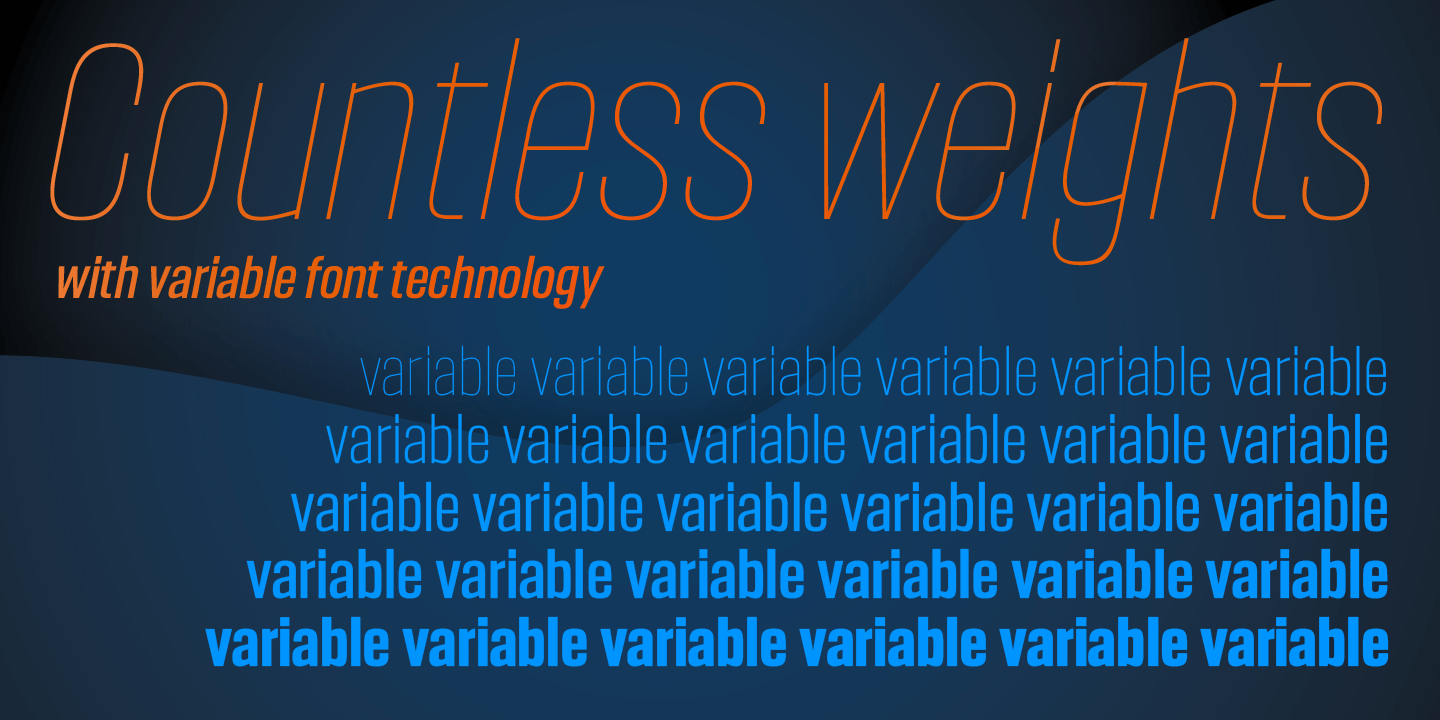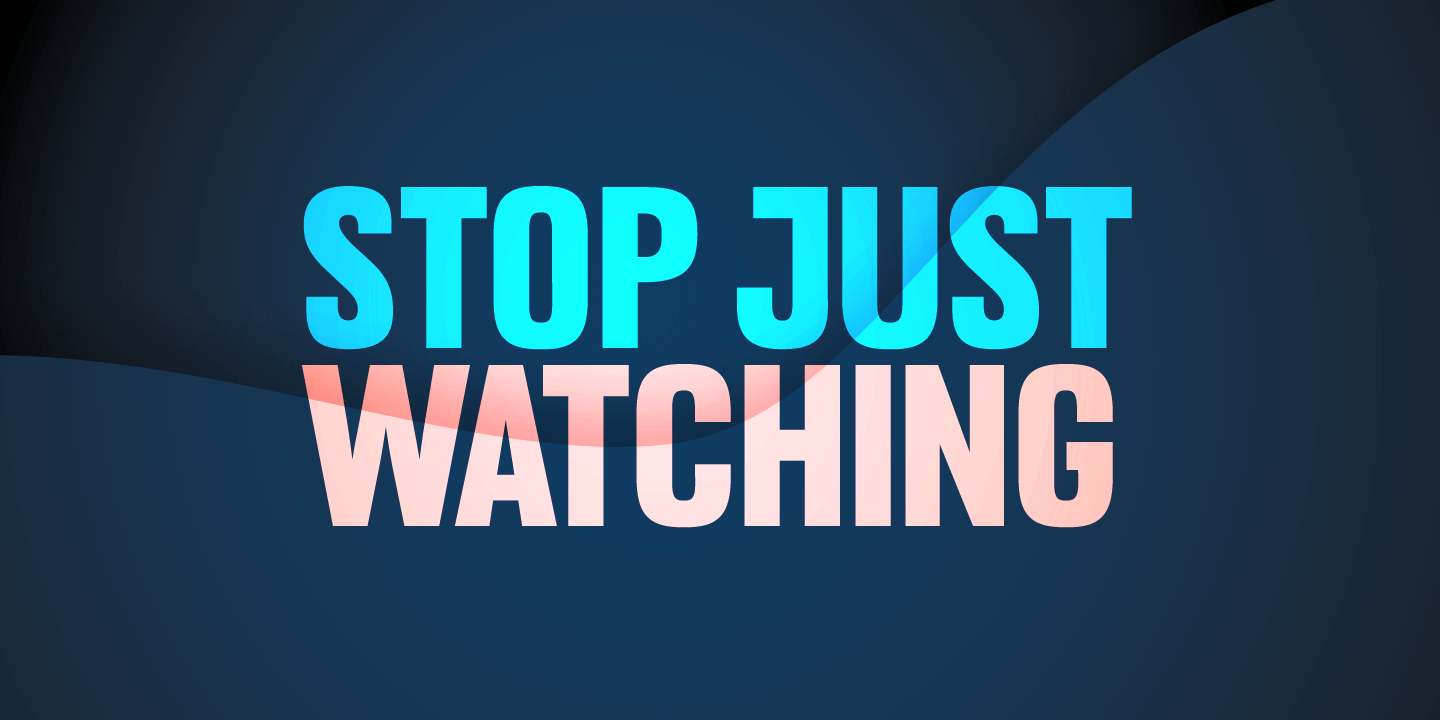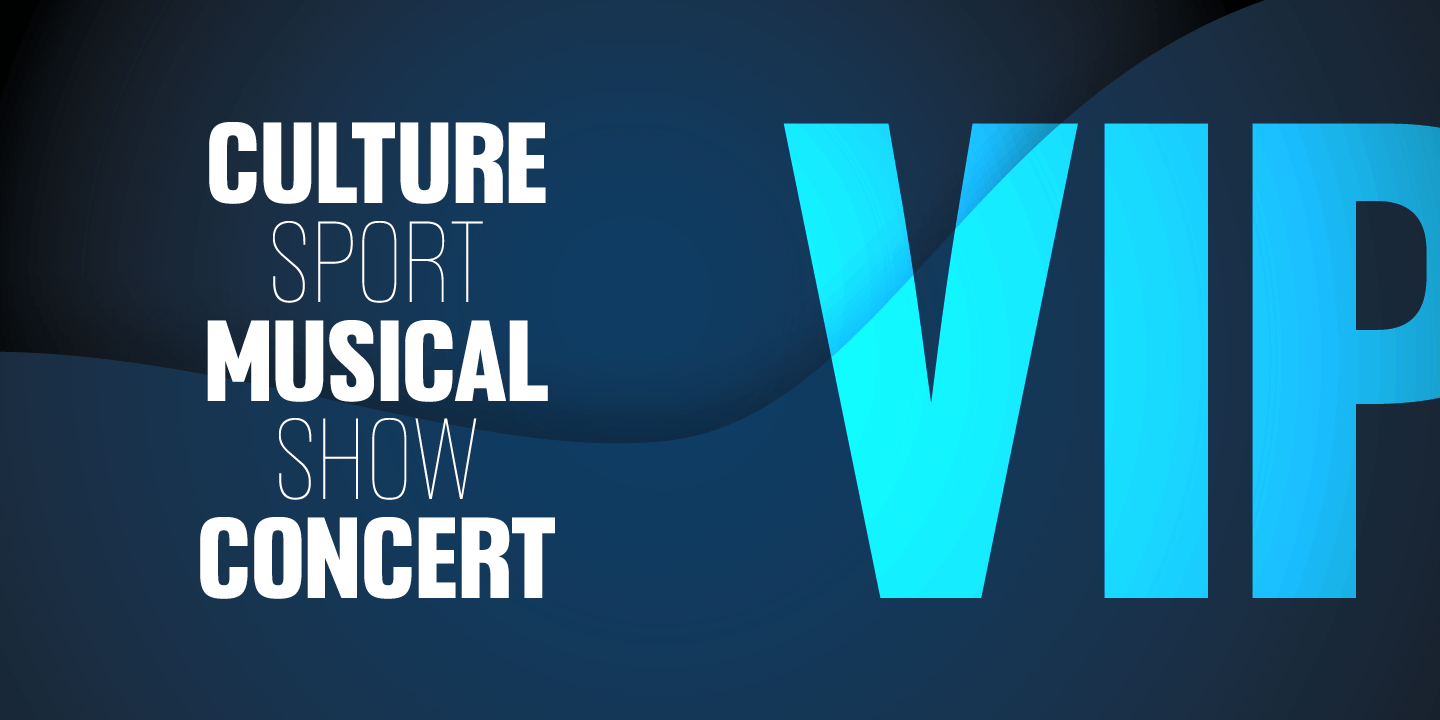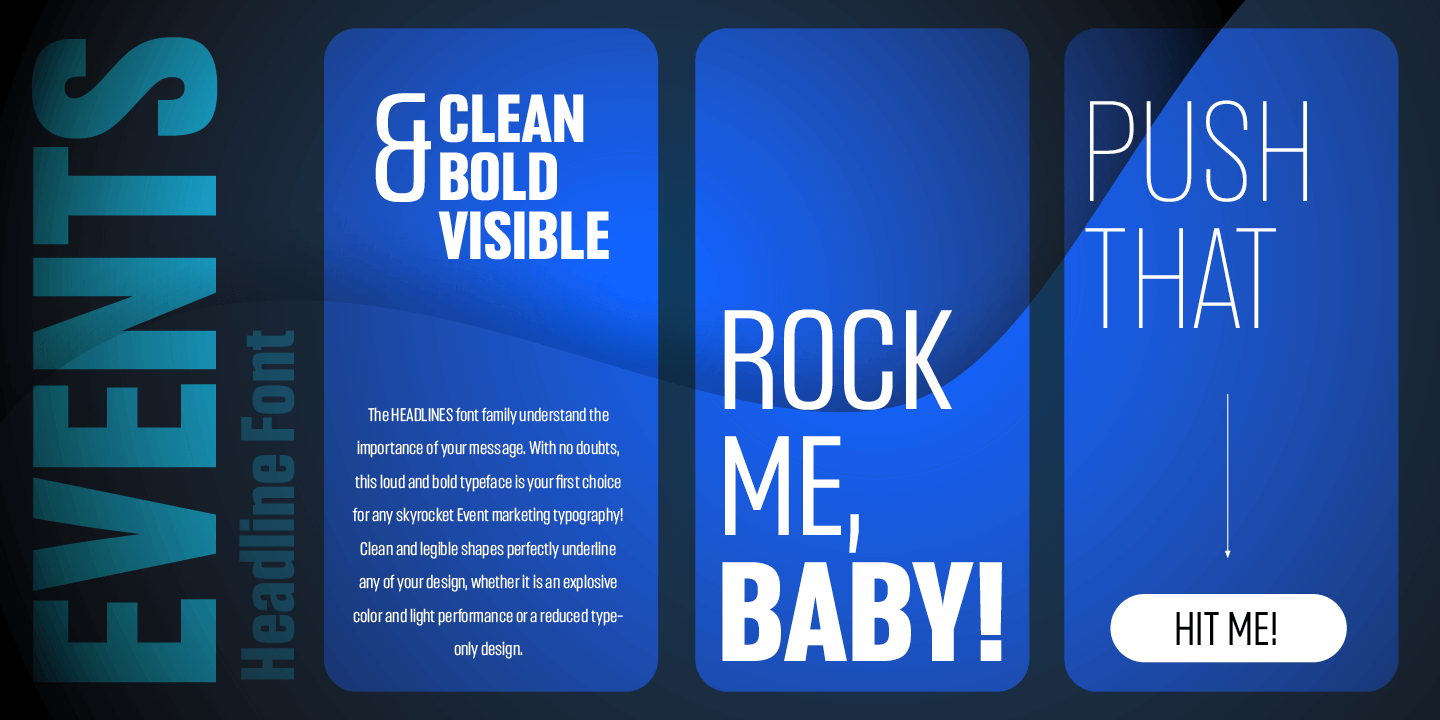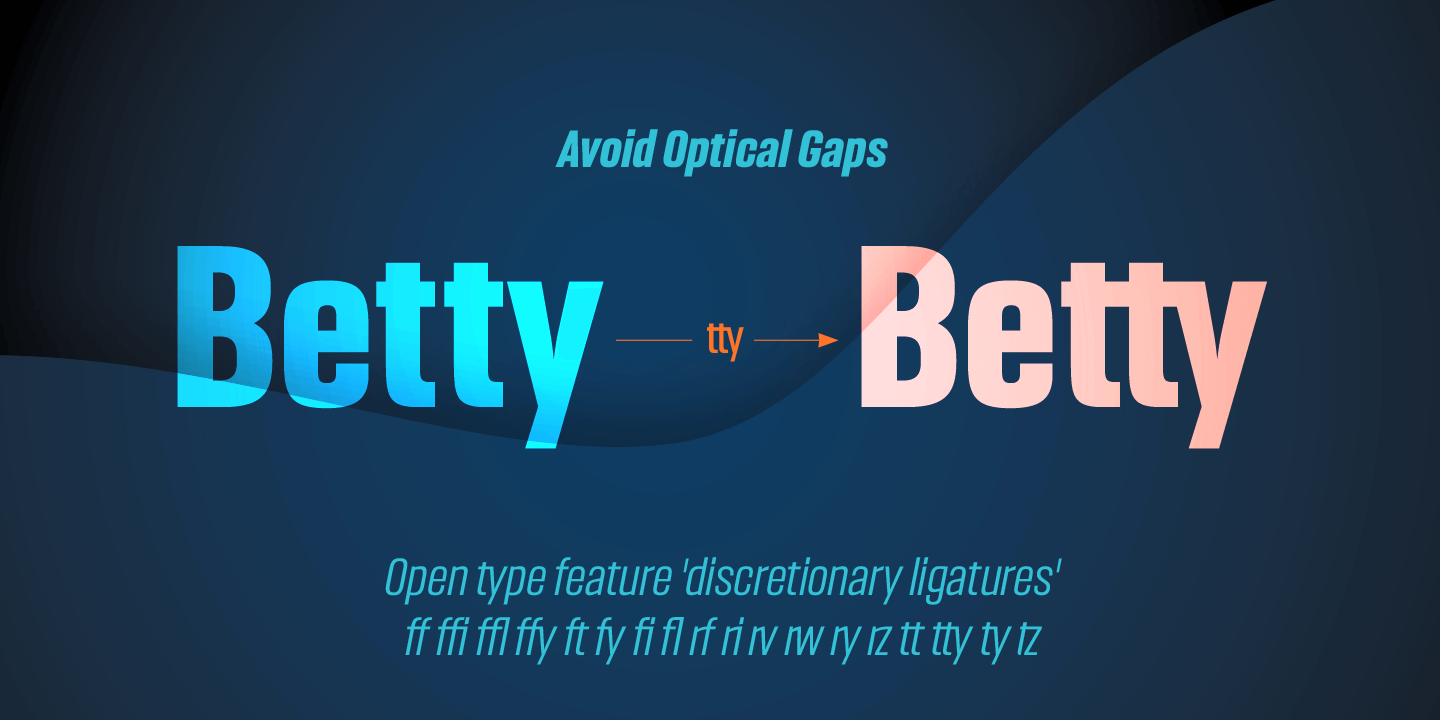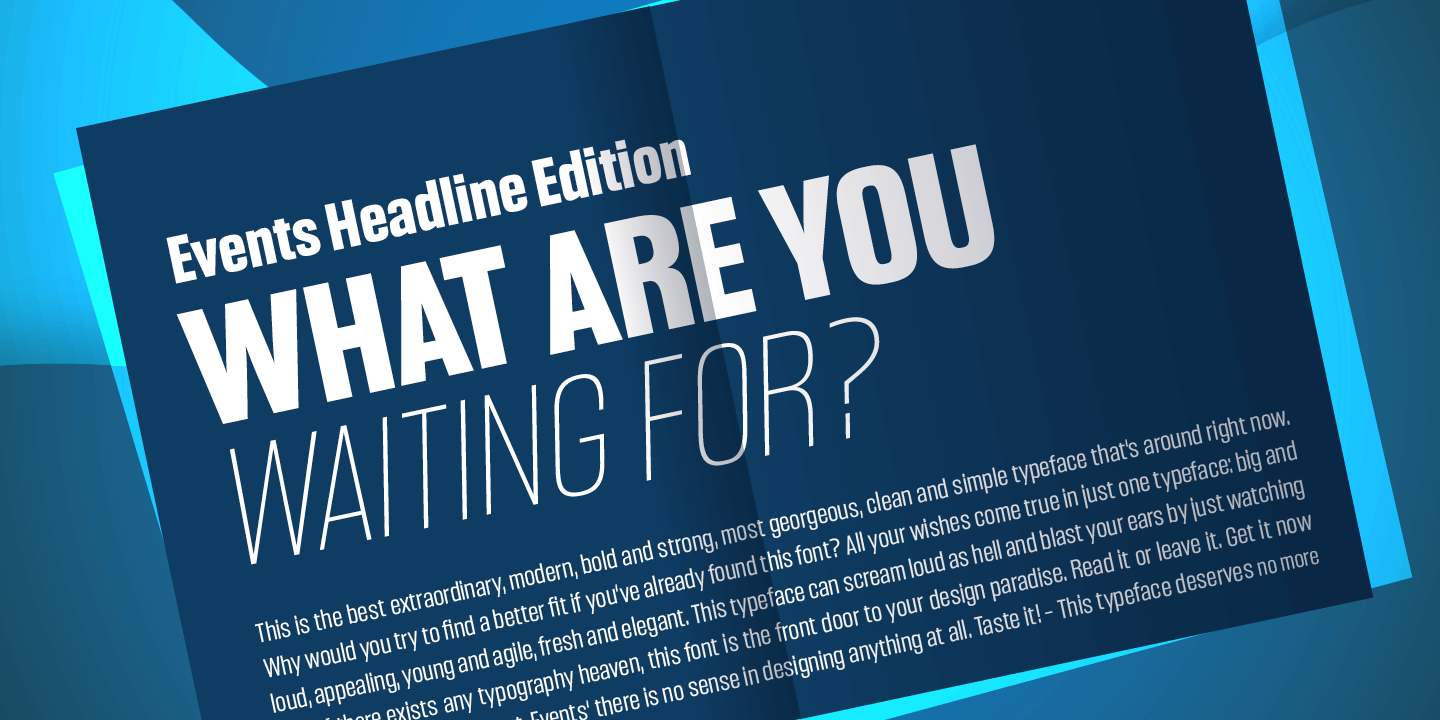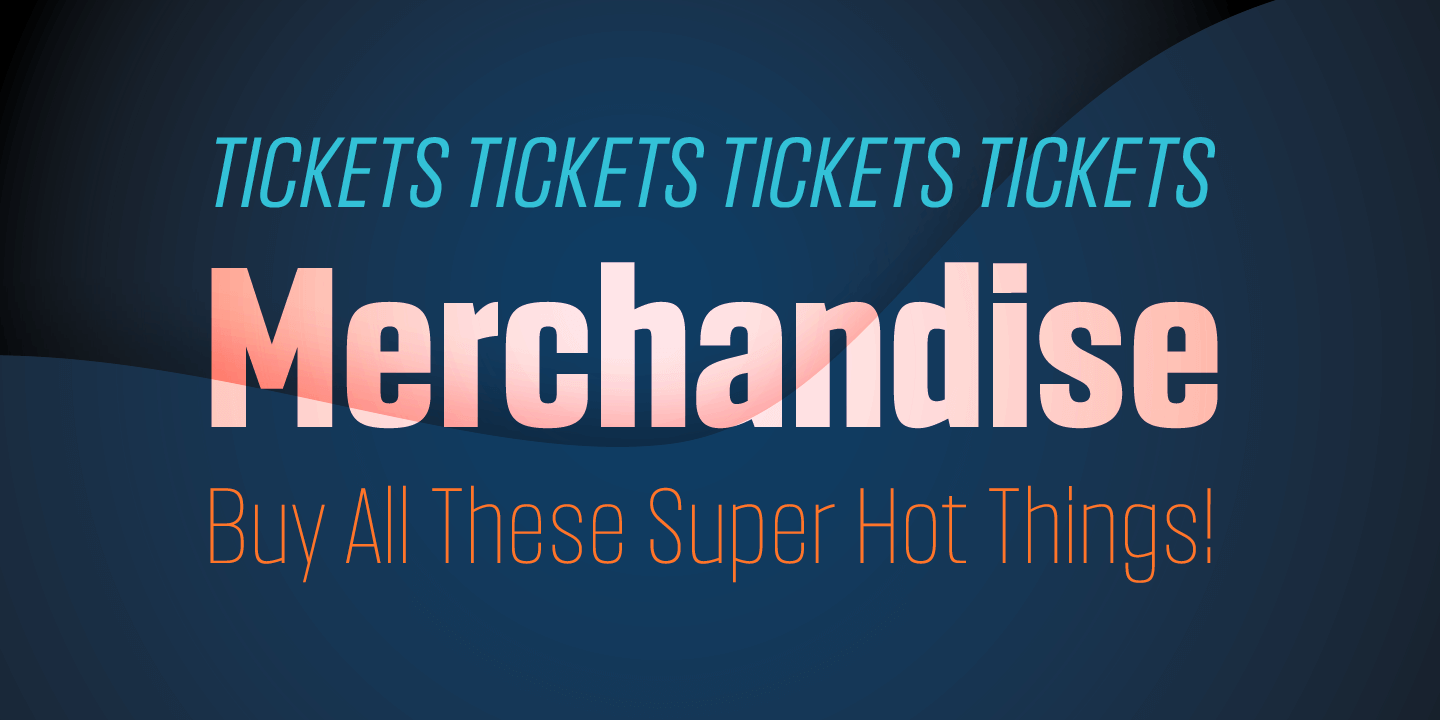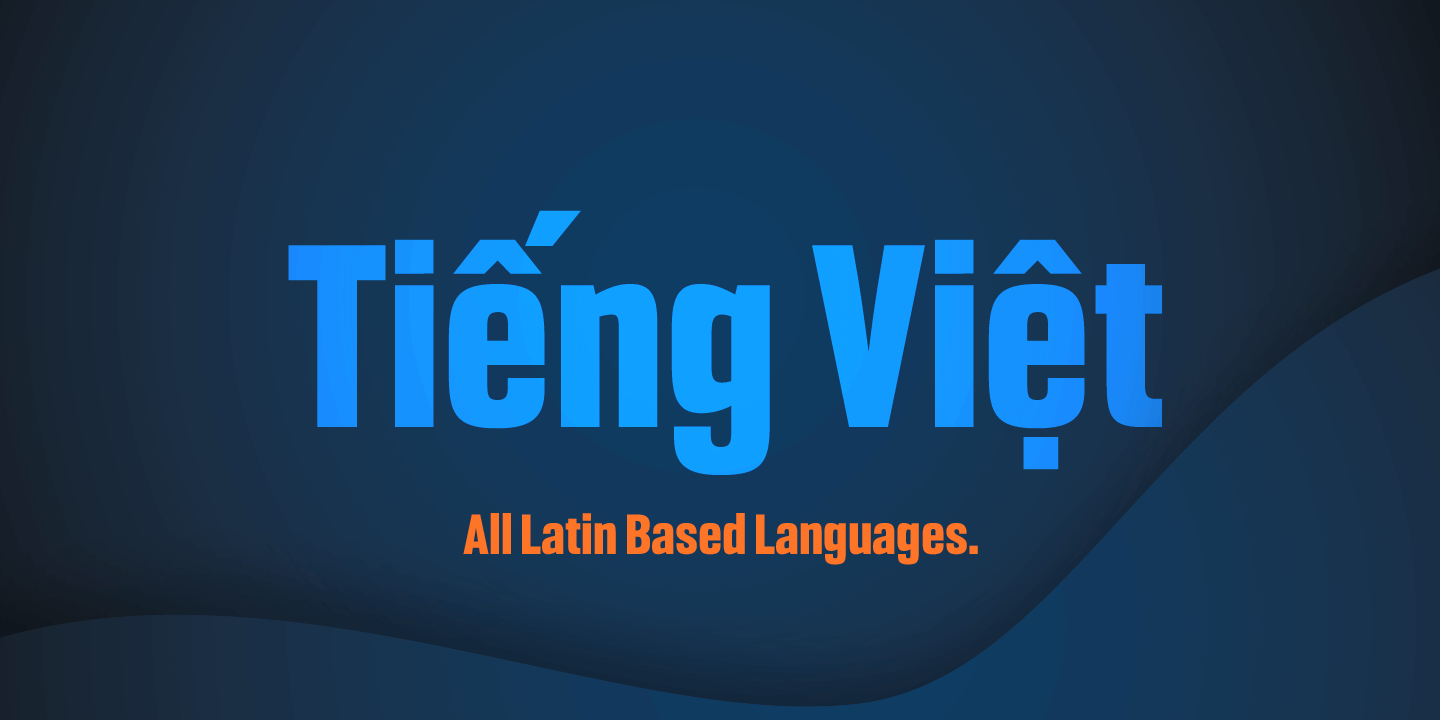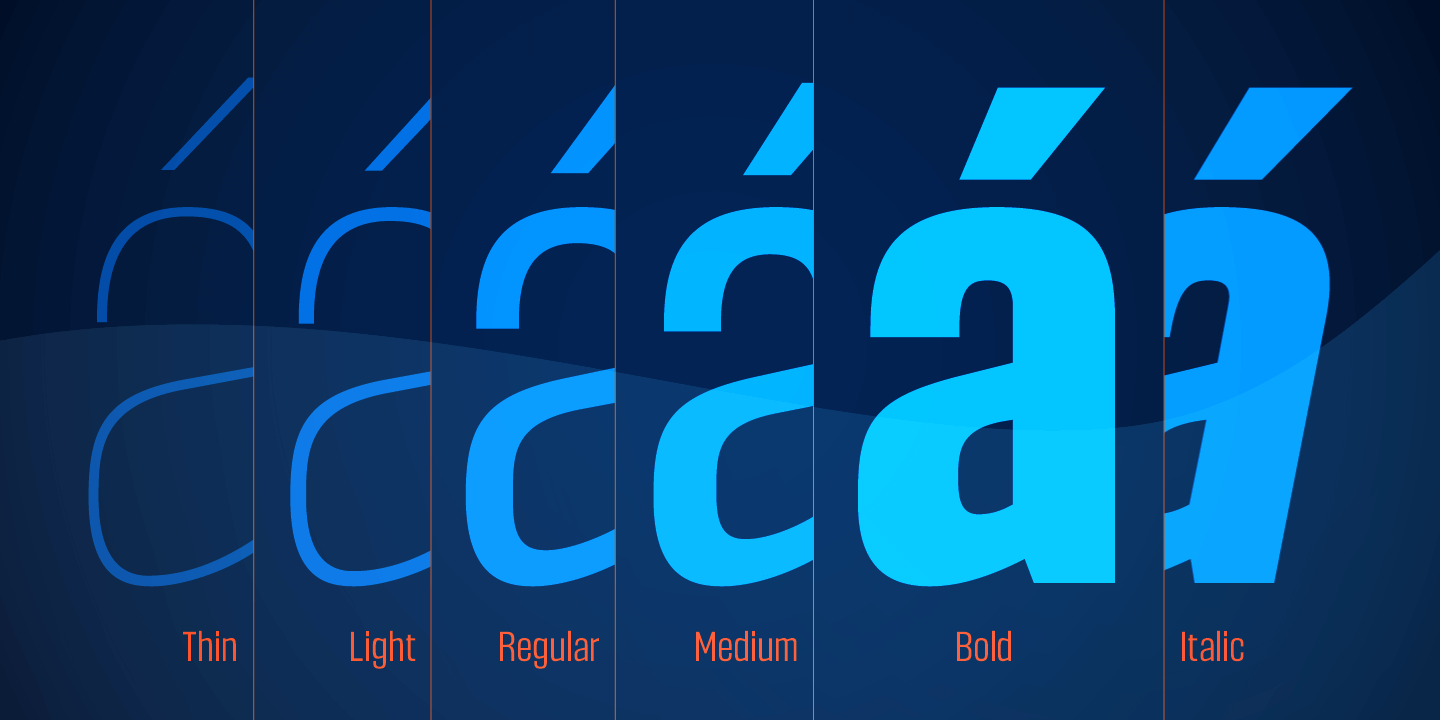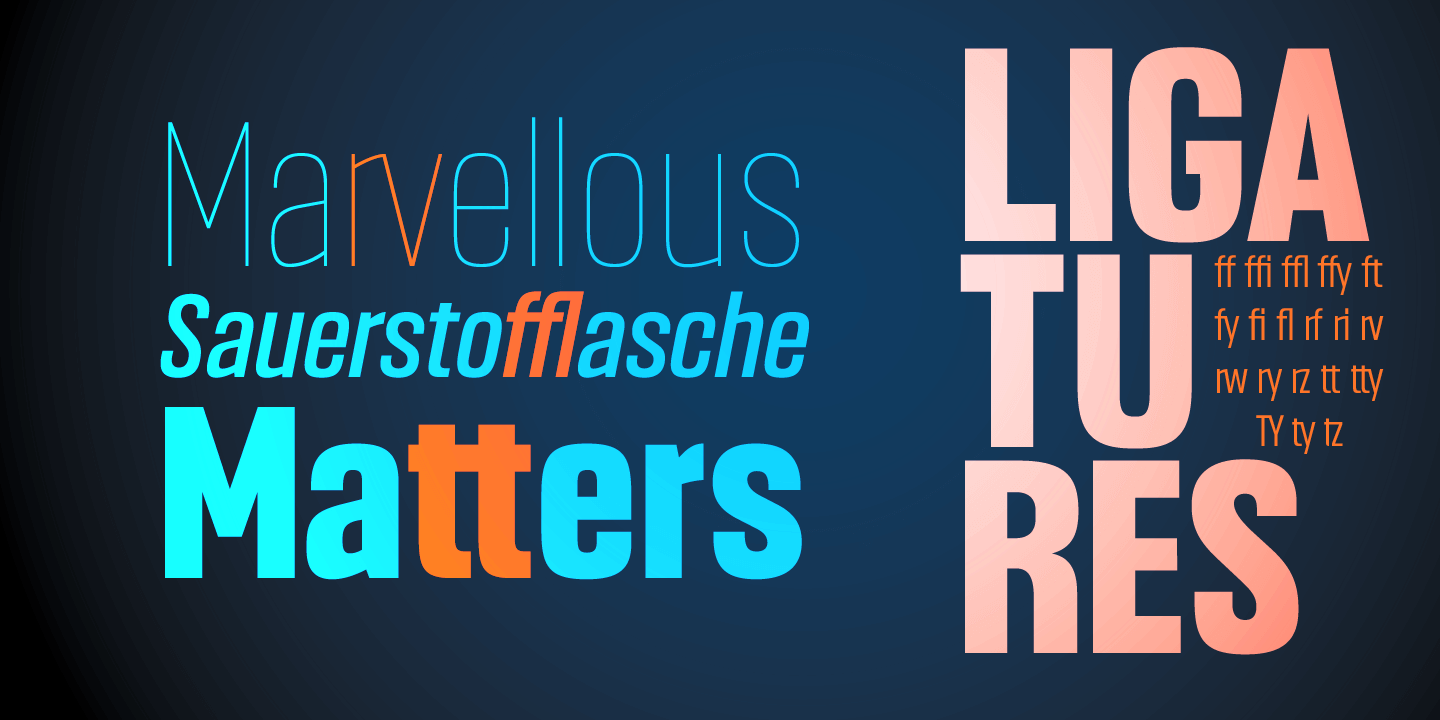
Headlines Variable
Font Family by TypeThis!Studio
The condensed letters are designed for clear and straight headlines and also allow longer words and headlines to find the space they need for a well-composed headline. The exciting plus of this font are its discretionary ligatures. The Headlines font family contains a number of special ligatures for certain combinations to fill common visual gaps such as tty, rv and many more.
Type perfect headlines ? now and forever!
What you can expect:
- 632 Glyphs
- 10 Styles: Thin, Light, Regular, Medium, Bold + matching Italics
- Variable Fonts for countless weight variation*
- Full Latin Language support including Vietnamese
Open Type Features:
- Numerators/Denominators
- Sub- and Superscript
- Fractions
- Ordinals
- Discretionary Ligatures
- Slashed Zero